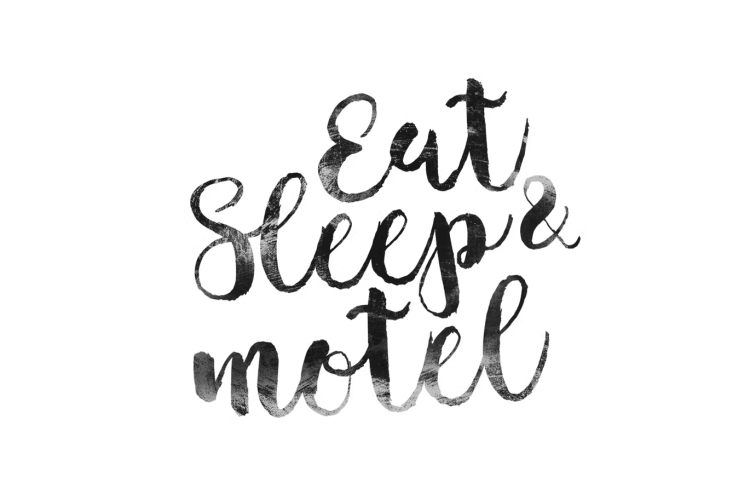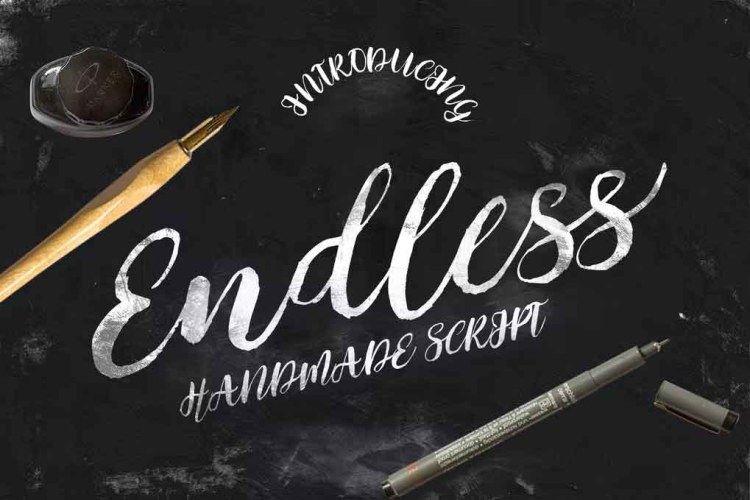
Endless Script Font
Endless Script is beautiful handwritten font. It looks like it has been created with a tiny brush or pencil and is great for adding elegant decorations to your designs.…
Endless Script is beautiful handwritten font. It looks like it has been created with a tiny brush or pencil and is great for adding elegant decorations to your designs.
Looks great on wedding invites, birthday cards, nursery decorations and more.
Where Endless Script Font works best
Endless Script Font brings a personal, handwritten warmth to invitations, menus and place cards.
Craft brands — coffee, cosmetics, bakery — use scripts like Endless Script Font for signature-style logos and labels.
Pair Endless Script Font with a plain sans for quotes, stories and Pinterest pins that feel handmade.
What is Endless Script Font good for?
Endless Script Font is a Script And Handwritten typeface tagged Craft, Elegant, Handwritten, Script. It works well for headlines, logos, posters, social media graphics and branding projects that need a distinctive script and handwritten look.